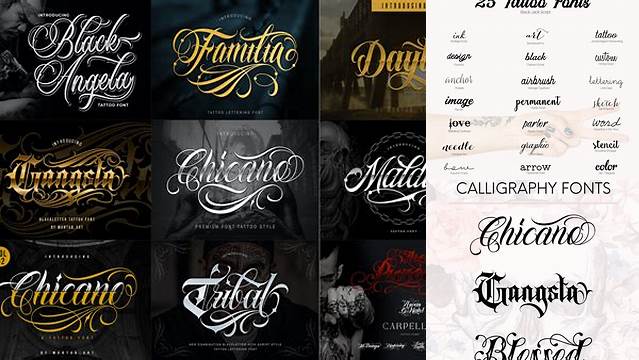
Best Tattoo Lettering Fonts Generator
So, you're looking for the best tattoo lettering fonts generator, huh? You've come to the right place! Choosing the perfect font for your tattoo is crucial – it's like picking the right voice for your skin. It needs to represent you, your style, and the message you want to convey. Let's dive into the awesome world of tattoo lettering and find that perfect match, guys! We'll explore everything from classic fonts to modern styles, and even the generators that can help you bring your vision to life. Think of this as your ultimate guide to getting inked with the perfect lettering font!
1. Classic Tattoo Lettering Styles
Classic tattoo lettering styles are like the OG fonts – they've been around for ages and continue to look timeless. These fonts, guys, are tried and true, and they're a fantastic option if you're aiming for a traditional or vintage vibe. Think of the classic script fonts you see in old-school sailor tattoos; those are the kinds of styles we're talking about. They exude a sense of history and permanence, making them a solid choice for meaningful quotes, names, or dates. The key here is elegance and readability. A well-executed classic font can make a powerful statement, and they're often less prone to looking dated compared to more trendy styles. Let’s explore some specific examples within this category to help you find the best tattoo lettering fonts generator and styles.
2. Modern Tattoo Lettering Styles
Moving on to the modern side of the spectrum, modern tattoo lettering styles are all about clean lines, contemporary aesthetics, and a fresh take on the art form. These fonts often incorporate geometric shapes, minimalist designs, and unique twists on traditional letterforms. If you're aiming for a sleek, edgy, or futuristic look, then modern fonts are definitely your jam. They can range from bold and blocky to delicate and airy, offering a huge amount of versatility. The beauty of modern fonts lies in their ability to stand out while remaining understated. They're perfect for short, impactful words or phrases, and they can be easily customized to reflect your personal style. Finding the best tattoo lettering fonts generator for this style means looking for tools that offer customization and a wide range of contemporary options. Let's dive deeper into what makes modern fonts so appealing and how they can elevate your tattoo design, guys!
3. Script Tattoo Fonts
Ah, script tattoo fonts! These are the graceful, flowing fonts that mimic handwriting. They add a touch of elegance and personality to your ink, making them super popular for names, quotes, and heartfelt messages. Script fonts can range from formal and ornate to casual and whimsical, so there's a script style out there for everyone. The key to a great script tattoo is readability. While those swirly flourishes look beautiful, you want to make sure the words are still clear and easy to decipher. Think about the size and placement of your tattoo, too. A delicate script might look stunning on your wrist, but a bolder script might be a better choice for your back or ribs. Guys, finding the best tattoo lettering fonts generator for script styles can open up a world of possibilities for creating personalized and meaningful tattoos. Let's explore the nuances of script fonts and how to choose the perfect one for your vision.
4. Gothic Tattoo Fonts
Gothic tattoo fonts are all about that dark, dramatic, and slightly mysterious vibe. Think medieval manuscripts, old English lettering, and a touch of the macabre. These fonts are bold, intricate, and often feature sharp angles and strong lines. They're a fantastic choice if you're going for a powerful, edgy look. Gothic fonts are particularly well-suited for larger tattoos, as the details can get lost if the lettering is too small. They work beautifully for words or phrases that carry a strong meaning or a sense of history. When choosing a Gothic font, make sure it's still legible, guys. Some of the more elaborate styles can be challenging to read if they're not executed properly. Finding the best tattoo lettering fonts generator that includes a variety of Gothic styles can help you experiment and find the perfect match for your design. Let's delve into the history and characteristics of Gothic fonts and how to make them work for your next tattoo.
5. Calligraphy Tattoo Fonts
Calligraphy tattoo fonts are the epitome of elegance and artistry. These fonts are inspired by the art of hand lettering and often feature delicate strokes, beautiful flourishes, and a sense of fluidity. Calligraphy tattoos can be incredibly stunning, but they require a skilled artist who understands the nuances of the style. These fonts are perfect for adding a touch of sophistication to your ink, and they work well for meaningful quotes, names, or dates. When choosing a calligraphy font, consider the overall aesthetic you're going for. Do you want something traditional and formal, or something more modern and whimsical? The best tattoo lettering fonts generator will offer a range of calligraphy styles to choose from. It's crucial to find an artist who specializes in calligraphy tattoos to ensure the lines are crisp, the spacing is even, and the overall design is balanced. Let’s explore how calligraphy fonts can elevate your tattoo and make it a true work of art, guys!
6. Old English Tattoo Fonts
Old English tattoo fonts are a classic choice for those who want to convey a sense of history, tradition, and strength. These fonts are characterized by their bold, intricate letterforms and their distinctive, almost medieval appearance. They're often used for names, initials, and meaningful words or phrases. Old English fonts carry a certain gravitas, making them a popular choice for those who want a tattoo that feels timeless and significant. However, they can also be quite ornate and challenging to read if not executed properly. It's essential to choose an artist who is experienced in working with Old English fonts and to ensure the lettering is large enough to maintain legibility. The best tattoo lettering fonts generator for this style will offer variations in weight and detail to suit different tattoo sizes and placements. Guys, let's delve into the historical roots of Old English fonts and how they can add a touch of regal flair to your tattoo.
7. Cursive Tattoo Fonts
Cursive tattoo fonts are all about fluidity and grace. These fonts mimic the natural flow of handwriting, adding a personal and intimate touch to your ink. Cursive fonts are a fantastic choice for names, dates, quotes, and any message that you want to convey with a sense of elegance. The variety within cursive fonts is vast, ranging from simple and understated to elaborate and decorative. The key to a successful cursive tattoo is readability. While those swirling loops and flourishes look beautiful, you need to make sure the words are still clear and easy to decipher. Consider the size and placement of your tattoo, as well as the complexity of the font itself. The best tattoo lettering fonts generator will allow you to preview how different cursive styles look with your chosen words. Let's explore the diverse world of cursive fonts and how they can add a touch of personal flair to your tattoo, guys!
8. Graffiti Tattoo Fonts
Graffiti tattoo fonts bring an edgy and urban vibe to your skin. These fonts are inspired by street art and often feature bold, dynamic letterforms with a raw and expressive feel. Graffiti fonts are perfect for those who want a tattoo that stands out and makes a statement. They can range from stylized and abstract to more legible and traditional graffiti styles. The key to a great graffiti tattoo font is finding the right balance between artistic flair and readability. You want the font to capture the energy and creativity of graffiti art while still ensuring the words are clear and understandable. Guys, the best tattoo lettering fonts generator for this style will offer a range of graffiti-inspired fonts, allowing you to experiment with different styles and effects. Let's explore how graffiti fonts can add a unique and rebellious touch to your tattoo design.
9. Tribal Tattoo Fonts
Tribal tattoo fonts draw inspiration from various indigenous cultures around the world. These fonts often feature bold, geometric shapes, intricate patterns, and a strong sense of cultural heritage. Tribal fonts can be used to create powerful and meaningful tattoos that represent your ancestry, beliefs, or personal identity. When choosing a tribal font, it's essential to do your research and ensure the design is respectful of the culture it originates from. Some tribal designs hold deep spiritual significance, so it's crucial to understand the meaning behind the symbols and patterns you choose. The best tattoo lettering fonts generator may offer a selection of tribal-inspired fonts, but it's always best to consult with an artist who specializes in tribal tattoos to ensure your design is authentic and culturally sensitive. Let's explore the rich history and symbolism behind tribal fonts and how they can be used to create meaningful tattoos, guys!
10. Outline Tattoo Fonts
Outline tattoo fonts offer a clean, minimalist, and modern aesthetic. These fonts feature the outline of each letter, creating a subtle yet striking effect. Outline fonts are a versatile choice that can work well for a variety of tattoo styles and placements. They're particularly effective for smaller tattoos or for those who prefer a more understated look. The beauty of outline fonts lies in their simplicity. They allow the negative space to become part of the design, creating a visually interesting effect. When choosing an outline font, consider the thickness of the lines and the overall shape of the letters. The best tattoo lettering fonts generator will allow you to experiment with different line weights and styles. Guys, let's explore how outline fonts can add a touch of contemporary elegance to your tattoo design.
11. Block Tattoo Fonts
Block tattoo fonts are all about making a bold statement. These fonts are characterized by their strong, solid letterforms and their powerful visual impact. Block fonts are a fantastic choice for words or phrases that you want to stand out and grab attention. They work particularly well for larger tattoos and can be used to create a sense of strength and permanence. When choosing a block font, consider the spacing between the letters and the overall balance of the design. A well-executed block font tattoo can be incredibly striking, but it's essential to ensure the lettering is clear and legible. The best tattoo lettering fonts generator will offer a range of block fonts, from classic styles to more modern variations. Let's explore how block fonts can add a powerful and impactful element to your tattoo design, guys!
12. Shadow Tattoo Fonts
Shadow tattoo fonts add depth and dimension to your ink. These fonts feature a shadow effect that creates the illusion of the lettering lifting off the skin. Shadow fonts can be used to add visual interest and make your tattoo stand out. They work particularly well for larger tattoos and can be combined with other font styles to create a unique and dynamic design. When choosing a shadow font, consider the direction and intensity of the shadow. The shadow effect should enhance the lettering without making it difficult to read. The best tattoo lettering fonts generator will allow you to experiment with different shadow styles and angles. Guys, let's explore how shadow fonts can add a touch of realism and visual intrigue to your tattoo.
13. 3D Tattoo Fonts
3D tattoo fonts take the dimension game to the next level. These fonts use shading, highlights, and perspective techniques to create the illusion of three-dimensional lettering. 3D fonts can be incredibly striking and realistic, making your tattoo appear as if it's popping off your skin. However, 3D tattoos require a highly skilled artist who understands the intricacies of shading and perspective. They also tend to work best for larger tattoos, as the details can get lost if the lettering is too small. If you're considering a 3D tattoo, it's crucial to research artists who specialize in this style and to view their portfolio to ensure they have the necessary expertise. The best tattoo lettering fonts generator might offer some 3D font options, but it's always best to consult with an experienced artist to bring your vision to life. Let's explore the techniques and considerations involved in creating stunning 3D tattoo lettering, guys!
14. Pixel Tattoo Fonts
Pixel tattoo fonts are a fun and quirky choice for those who love retro gaming or digital aesthetics. These fonts mimic the blocky, pixelated style of early computer fonts, creating a unique and nostalgic look. Pixel fonts are a great way to add a touch of personality and playfulness to your tattoo. They work particularly well for short words or phrases and can be used to create a distinctive and eye-catching design. When choosing a pixel font, consider the size and spacing of the pixels. The lettering should be clear and legible, even with the pixelated effect. The best tattoo lettering fonts generator may offer a selection of pixel fonts, allowing you to experiment with different styles and arrangements. Let's explore how pixel fonts can add a touch of retro-cool to your tattoo, guys!
15. Handwritten Tattoo Fonts
Handwritten tattoo fonts are designed to mimic the natural look and feel of handwriting. These fonts add a personal and intimate touch to your ink, making them a popular choice for names, dates, and heartfelt messages. Handwritten fonts can range from elegant and flowing to casual and quirky, offering a wide range of styles to choose from. The key to a successful handwritten tattoo is to choose a font that is both legible and reflective of your personality. Consider the overall style of your tattoo and how the handwritten font will complement the design. The best tattoo lettering fonts generator will offer a variety of handwritten styles, allowing you to find the perfect match for your vision. Guys, let's explore how handwritten fonts can add a unique and personal touch to your tattoo design.
16. Distressed Tattoo Fonts
Distressed tattoo fonts have a worn, weathered, and vintage feel. These fonts often feature imperfections, textures, and a sense of age, adding character and depth to your ink. Distressed fonts are a fantastic choice for those who want a tattoo that looks like it has a story to tell. They work particularly well for traditional or old-school tattoo styles and can be used to create a sense of nostalgia or history. When choosing a distressed font, consider the level of wear and tear. You want the font to look authentically aged without becoming illegible. The best tattoo lettering fonts generator may offer a selection of distressed fonts, allowing you to experiment with different levels of texture and detail. Let's explore how distressed fonts can add a touch of vintage charm to your tattoo, guys!
17. Brush Script Tattoo Fonts
Brush script tattoo fonts mimic the look of hand lettering done with a brush. These fonts have a flowing, dynamic, and artistic feel, adding a touch of elegance and personality to your ink. Brush script fonts are a popular choice for those who want a tattoo that feels both handwritten and artistic. They work particularly well for quotes, names, and messages that you want to convey with a sense of flair. When choosing a brush script font, consider the thickness and texture of the brush strokes. The lettering should be clear and legible, with a natural and fluid appearance. The best tattoo lettering fonts generator will offer a variety of brush script styles, allowing you to find the perfect balance between artistry and readability. Let's explore how brush script fonts can add a touch of artistic elegance to your tattoo design, guys!
18. Dotwork Tattoo Fonts
Dotwork tattoo fonts are created using a series of tiny dots instead of solid lines. This technique creates a unique textured effect and a subtle, almost ethereal look. Dotwork fonts are a great choice for those who want a tattoo that is both delicate and visually interesting. They work particularly well for geometric designs, intricate patterns, and tattoos with a minimalist aesthetic. Dotwork tattoos require a skilled artist with a steady hand and a keen eye for detail. The spacing and density of the dots are crucial to creating a clear and legible design. The best tattoo lettering fonts generator may not specifically generate dotwork fonts, but it can help you visualize how different letterforms will look with this technique. Guys, let's explore the art of dotwork tattoos and how it can be used to create stunning and unique lettering designs.
19. Stencil Tattoo Fonts
Stencil tattoo fonts are designed to mimic the look of lettering created using a stencil. These fonts often feature clean lines, geometric shapes, and a bold, industrial feel. Stencil fonts are a versatile choice that can work well for a variety of tattoo styles and placements. They're particularly effective for military-inspired tattoos, industrial designs, and any tattoo that you want to convey a sense of precision and order. When choosing a stencil font, consider the thickness of the lines and the overall shape of the letters. The lettering should be clear and legible, with a strong and defined appearance. The best tattoo lettering fonts generator will offer a selection of stencil fonts, allowing you to experiment with different styles and variations. Let's explore how stencil fonts can add a touch of industrial cool to your tattoo design, guys!
20. Outline with Fill Tattoo Fonts
Outline with fill tattoo fonts combine the best of both worlds – the clean lines of an outline font with the boldness of a filled font. These fonts feature a defined outline surrounding a solid fill, creating a striking visual contrast. Outline with fill fonts are a great choice for those who want a tattoo that stands out and is easy to read. They work particularly well for larger tattoos and can be used to emphasize the shape and form of the letters. When choosing an outline with fill font, consider the thickness of the outline and the color or shading of the fill. The contrast between the outline and the fill should be visually appealing and enhance the legibility of the lettering. The best tattoo lettering fonts generator will allow you to customize the outline and fill colors, so you can create the perfect look for your tattoo. Guys, let's explore how outline with fill fonts can add a bold and dynamic element to your tattoo design.
21. Choosing the Right Tattoo Lettering Generator
Okay, so you know what kind of font you're leaning towards, but how do you actually bring it to life? That's where a tattoo lettering generator comes in handy! These tools allow you to preview different fonts with your chosen words, experiment with sizes and placements, and get a visual idea of how your tattoo will look. But with so many generators out there, how do you choose the right one? Look for generators that offer a wide variety of fonts, customization options, and a user-friendly interface. The best tattoo lettering fonts generator will also allow you to save your designs and share them with your artist. Let's dive deeper into the features to look for in a generator and how to use them effectively, guys!
22. Factors to Consider When Selecting a Tattoo Font
Choosing a tattoo font isn't just about picking something that looks cool. There are several factors to consider to ensure your tattoo looks amazing for years to come. First, think about legibility. A beautiful font is useless if no one can read it! Consider the size and placement of your tattoo. A delicate script might look stunning on your wrist but get lost on your back. Next, think about the longevity of the font. Trendy fonts might look dated in a few years, while classic styles tend to stand the test of time. Finally, think about your personal style. Your tattoo should be a reflection of you, so choose a font that resonates with your personality and the message you want to convey. Let's break down these factors even further and explore how they impact your tattoo design, guys!
23. Matching the Font to Your Tattoo Design
The font you choose shouldn't just look good on its own; it should also complement the overall design of your tattoo. Think about the style and imagery of your tattoo. If you're getting a traditional tattoo, a classic font will likely be a better choice than a modern one. If you have a delicate floral design, a flowing script might be the perfect complement. If your tattoo is bold and graphic, a block font could be the way to go. The key is to create a harmonious balance between the lettering and the other elements of your tattoo. The best tattoo lettering fonts generator can help you visualize how different fonts will look with your design. Let's explore some specific examples of how to match fonts to different tattoo styles, guys!
24. Font Size and Placement Considerations
Font size and placement are crucial for the overall look and legibility of your tattoo. A font that's too small can look cramped and difficult to read, while a font that's too large can overwhelm the design. Think about the contours of your body and how the lettering will flow with your curves. Certain areas, like the wrist or ankle, might be better suited for smaller, more delicate fonts, while larger areas, like the back or ribs, can accommodate bolder lettering. Also, consider how the tattoo will look as your skin ages. Fine lines can blur over time, so it's often best to choose a font with slightly thicker lines for a tattoo that will look great for years to come. The best tattoo lettering fonts generator often allows you to simulate different sizes and placements. Guys, let's dive into the specifics of font size and placement and how they can make or break your tattoo design.
25. How to Preview Tattoo Fonts Before Inking
Before you commit to a tattoo, it's crucial to preview the font to make sure it looks exactly how you want it. Tattoo lettering generators are fantastic for this, as they allow you to see the font in different sizes, styles, and placements. But there are other ways to preview your tattoo as well. Print out the design and hold it up to your body to get a sense of the size and placement. You can also ask your artist to create a stencil and apply it to your skin. This will give you a realistic preview of how the tattoo will look before the needle even touches your skin. Let's explore these previewing techniques in more detail and how they can help you avoid tattoo regret, guys!
26. Working with a Tattoo Artist for Font Selection
Your tattoo artist is your partner in creating the perfect tattoo, and their expertise is invaluable when it comes to font selection. They can offer advice on which fonts will work best for your design, your skin type, and the placement of your tattoo. They can also help you customize a font to make it truly unique. Don't be afraid to ask your artist for their opinion and to work collaboratively to find the perfect font for your tattoo. The best tattoo lettering fonts generator can be a great starting point, but your artist can bring your vision to life with their skill and experience. Let's explore how to effectively communicate with your artist about font selection and how to make the most of their expertise, guys!
27. Tips for Ensuring Legibility of Tattoo Lettering
As we've mentioned before, legibility is key when it comes to tattoo lettering. A beautiful font is useless if no one can read it! To ensure your tattoo lettering is clear and easy to decipher, choose a font that is clean and well-defined. Avoid fonts with overly intricate details or thin lines, as these can blur over time. Consider the size and spacing of the letters. Make sure the letters aren't too close together, as this can make the words run together. And remember, the larger the tattoo, the more legible the lettering will be. Let's dive into some specific tips and techniques for maximizing legibility in your tattoo design, guys!
28. Maintaining Your Tattoo Lettering Over Time
Tattoos are permanent, but they can fade over time if not properly cared for. To keep your tattoo lettering looking its best for years to come, it's essential to follow a good aftercare routine. This includes keeping the tattoo clean and moisturized, avoiding excessive sun exposure, and staying hydrated. Sunscreen is your tattoo's best friend! Protecting your tattoo from the sun will help prevent fading and keep the colors vibrant. Also, be mindful of your skin's overall health. Keeping your skin hydrated and moisturized will help your tattoo look its best. Let's explore the specific steps you can take to maintain your tattoo lettering and keep it looking fresh for a lifetime, guys!
29. The Future of Tattoo Lettering Generators
The world of tattoo lettering is constantly evolving, and tattoo lettering generators are becoming more sophisticated and user-friendly. We can expect to see generators with more advanced features, such as the ability to create custom fonts, preview tattoos in augmented reality, and even connect with tattoo artists directly through the platform. The future of tattoo lettering is exciting, with technology playing an increasingly important role in the design process. Let's take a look at some of the emerging trends and technologies that are shaping the future of tattoo lettering, guys!
30. Finding Inspiration for Your Tattoo Lettering
Sometimes, the hardest part of getting a tattoo is deciding what to get! If you're feeling stuck for inspiration, there are tons of resources out there to help you find the perfect tattoo lettering for your design. Browse tattoo galleries online, check out tattoo artists' portfolios, and look for inspiration in books, magazines, and even everyday typography. Think about the message you want to convey and the style that resonates with you. The best tattoo lettering fonts generator can be a great tool for experimenting with different fonts and visualizing your ideas. Let's explore some specific sources of inspiration and how to translate them into your unique tattoo design, guys! So, there you have it! Your ultimate guide to finding the best tattoo lettering fonts generator and choosing the perfect font for your ink. Happy tattooing!